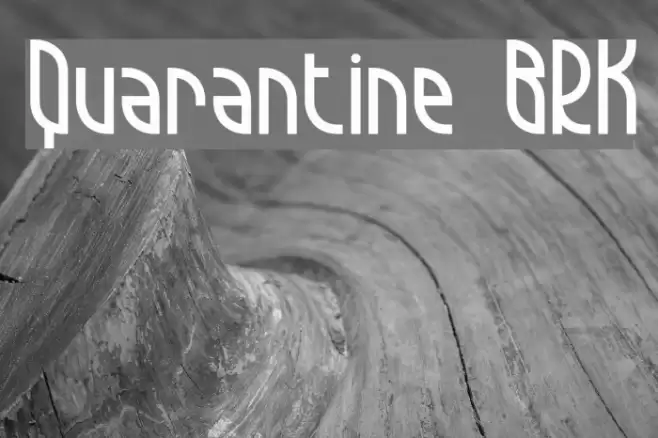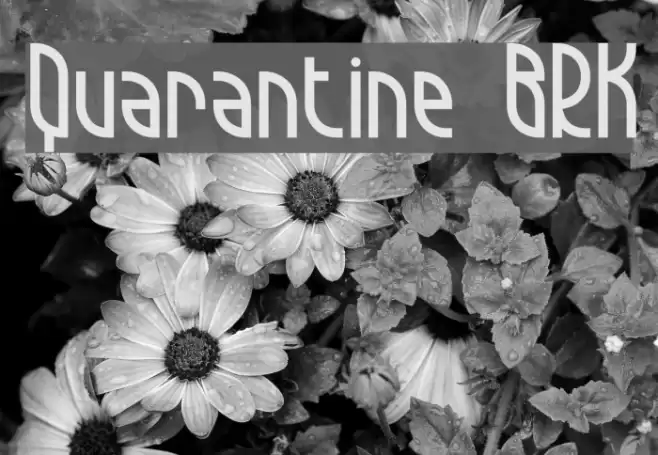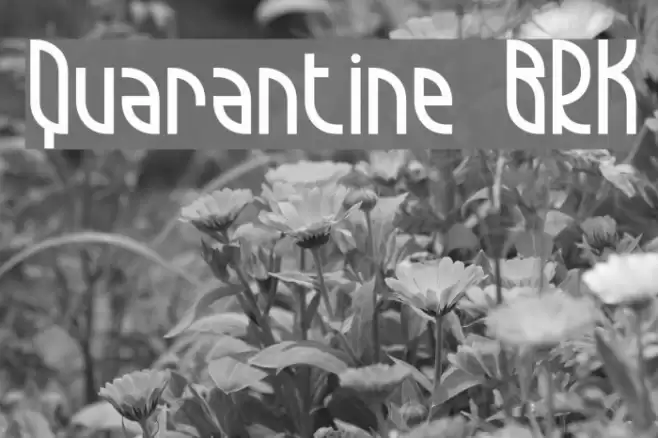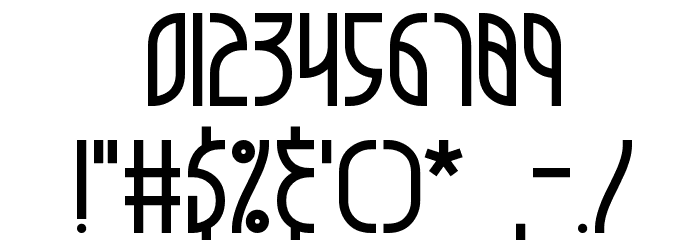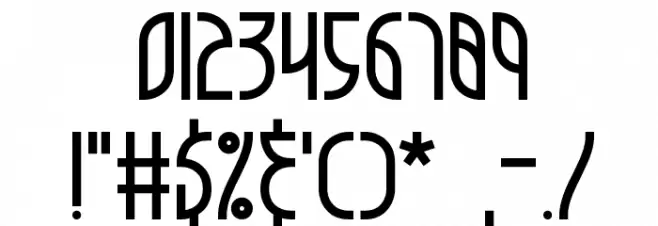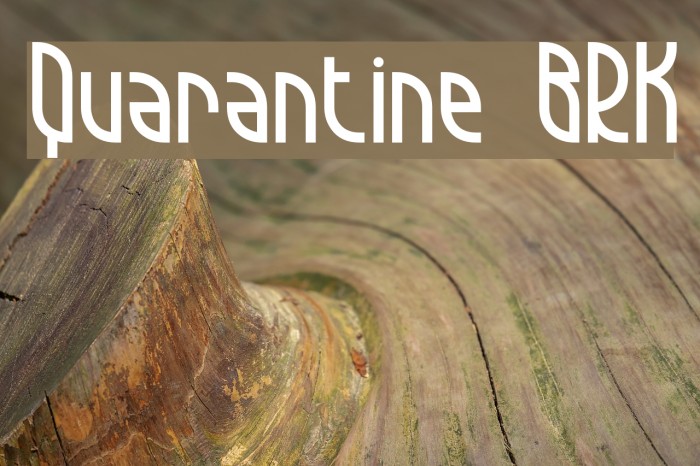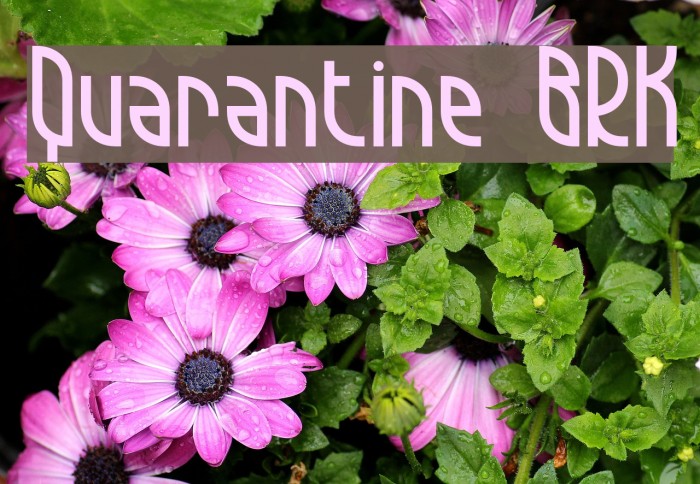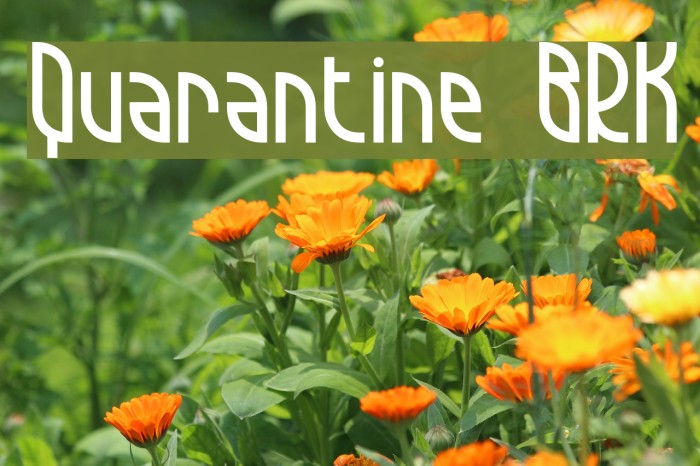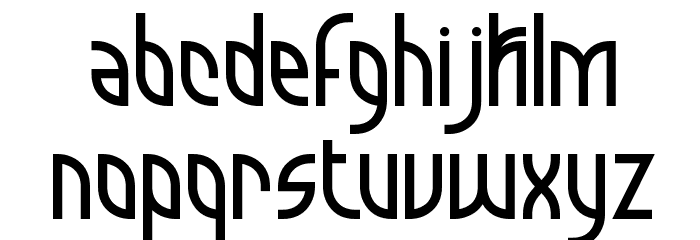
Quarantine BRK Font
Quarantine BRK Description
This font features a modern and geometric design with clean lines and a structured appearance. The characters are tall and narrow, giving it a condensed look. The uppercase letters have a uniform height, while the lowercase letters maintain a consistent baseline, enhancing readability. The numerals are distinct and align well with the overall style. Special characters are integrated seamlessly, maintaining the font's cohesive aesthetic. The design is suitable for projects that require a contemporary and sleek appearance, making it ideal for digital and print media.
A modern, geometric font with a tall, condensed design from Script fonts.